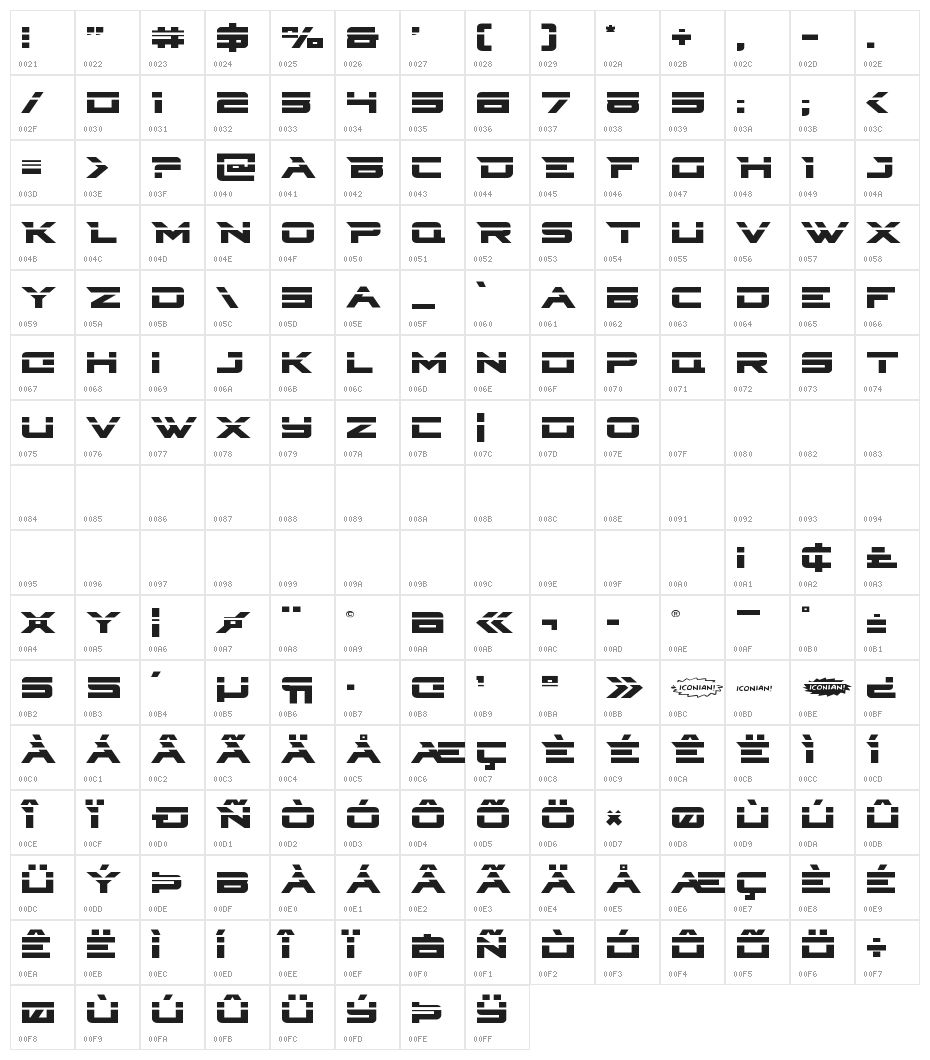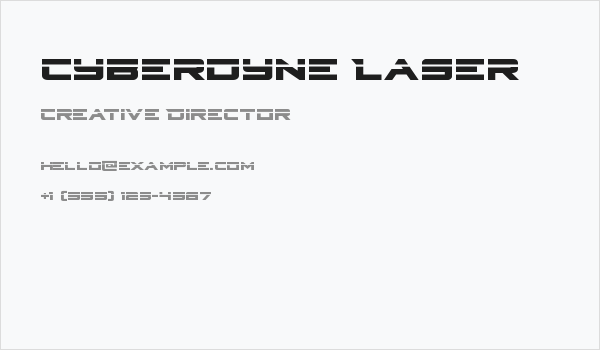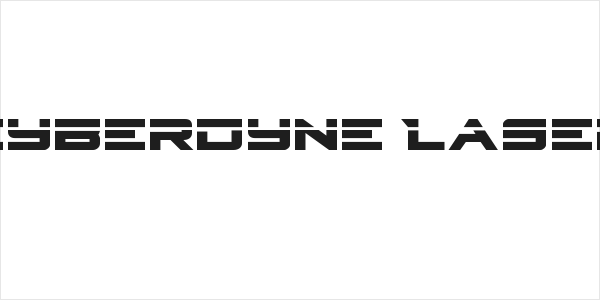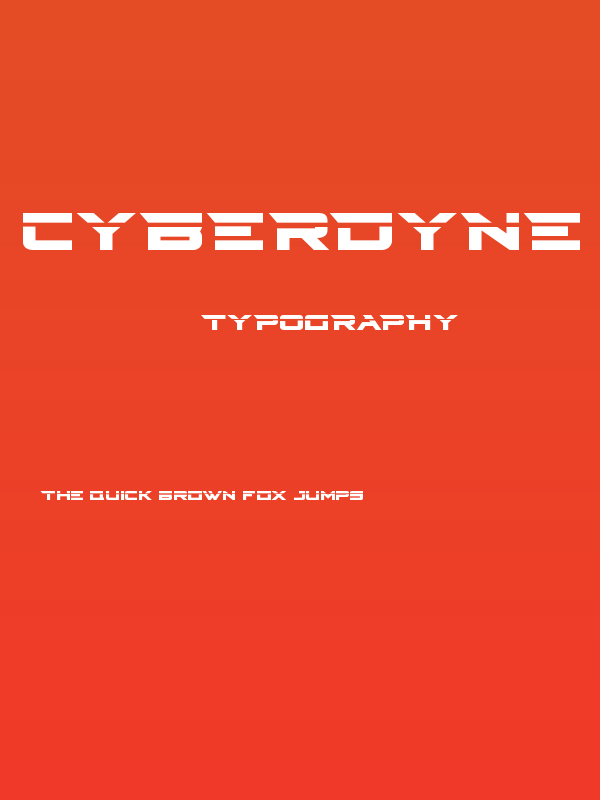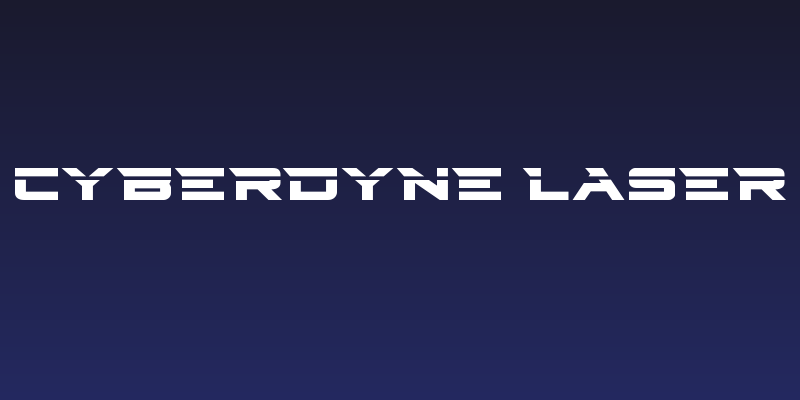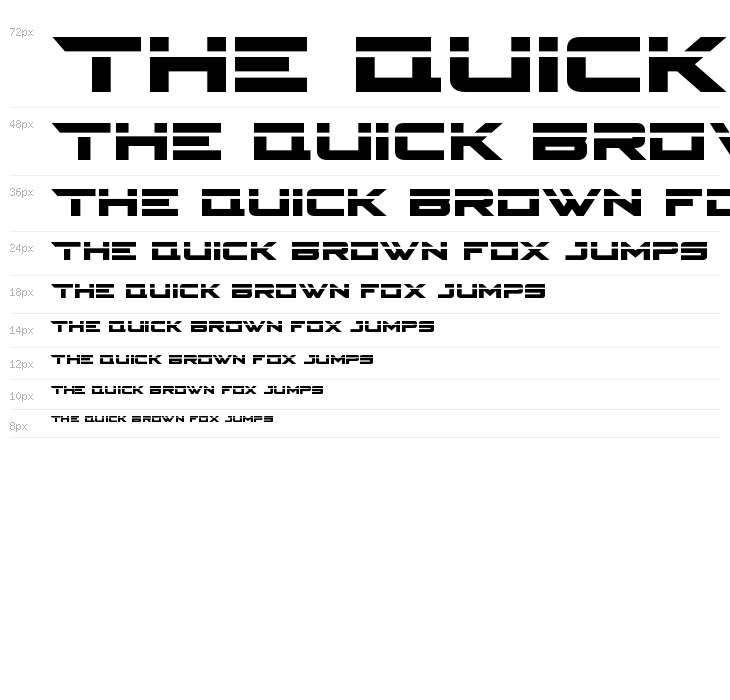
Cyberdyne Laser Font
Cyberdyne Laser Description
This font features a futuristic and angular design, characterized by its sharp edges and geometric shapes. The uppercase letters are bold and commanding, with a distinct sci-fi aesthetic that suggests technology and innovation. The lowercase letters maintain the same angular style, ensuring consistency across text. Numbers and special characters are designed with the same attention to detail, making them suitable for digital interfaces or tech-themed projects. The overall appearance is sleek and modern, with a strong emphasis on straight lines and symmetry.
| Proposed Projects | Ideal for tech branding, video game titles, movie posters, and digital interfaces. |